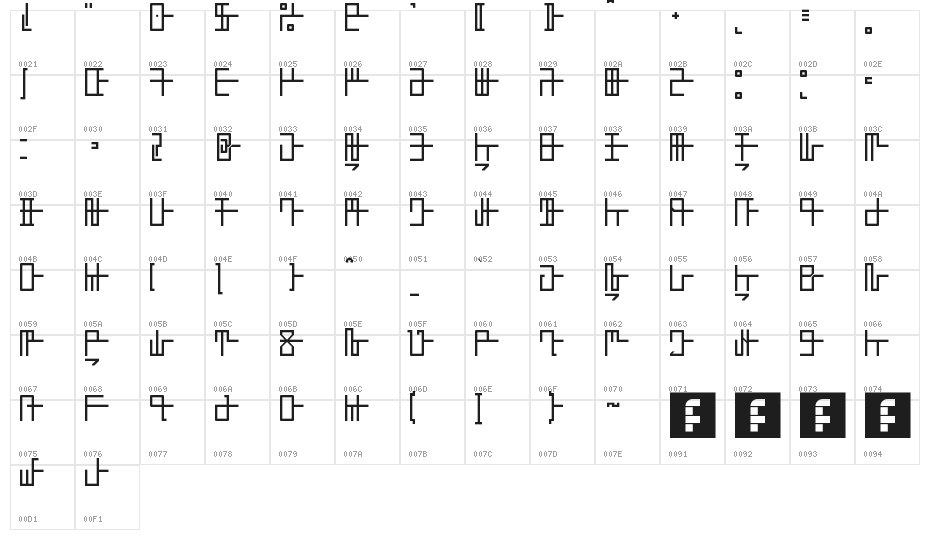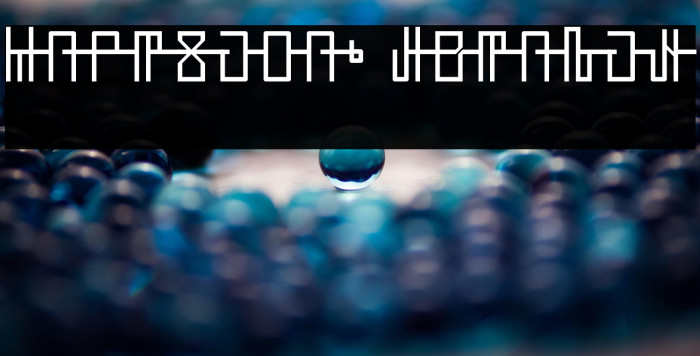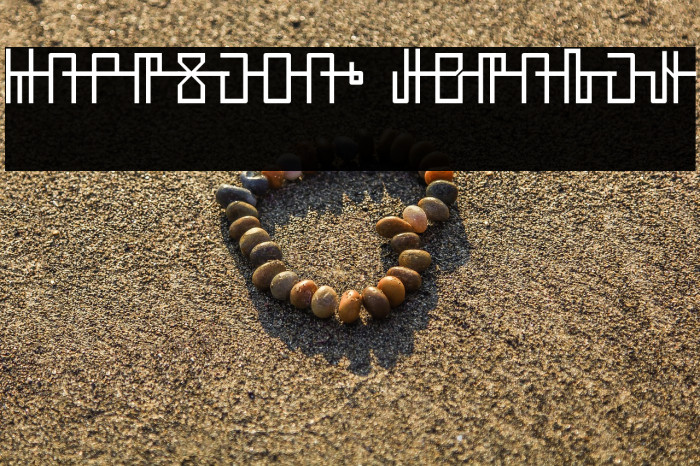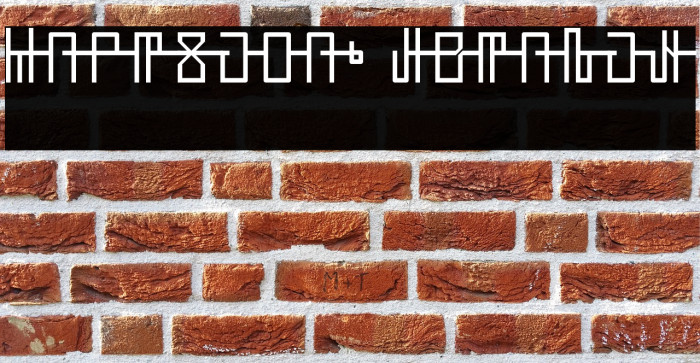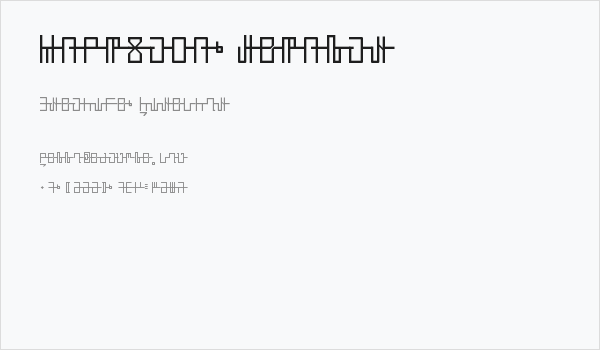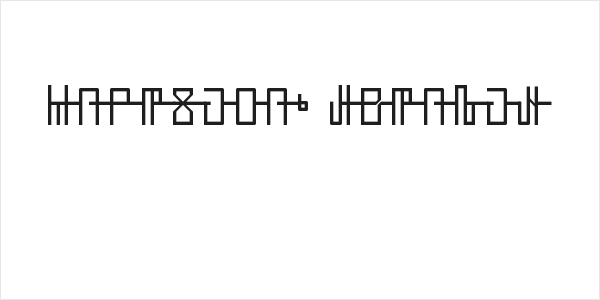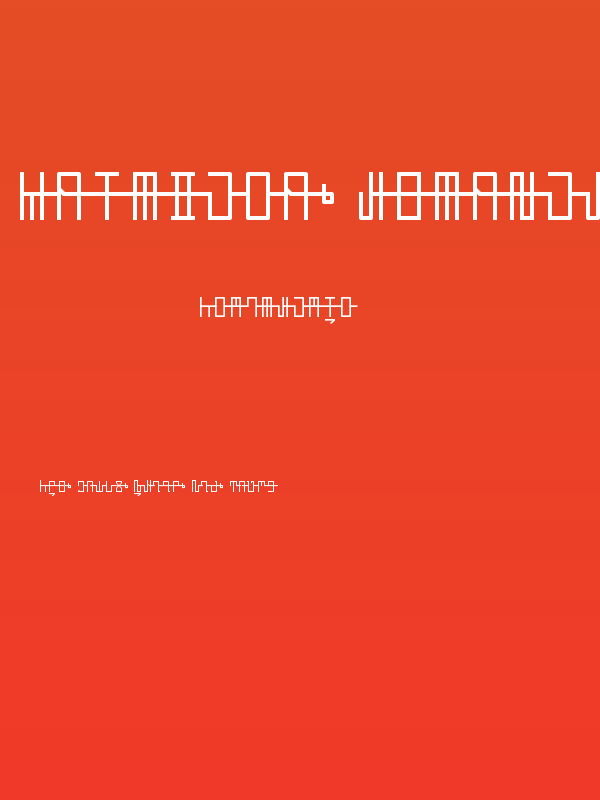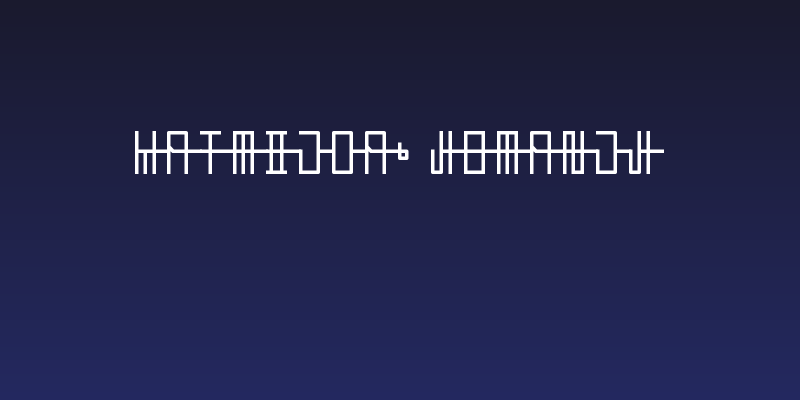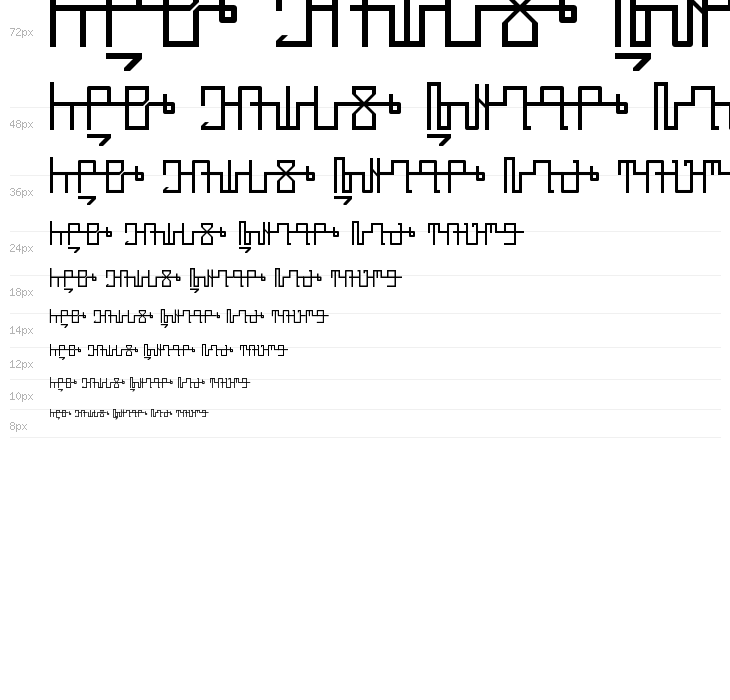
Zungkayu Regular Font
Zungkayu Regular Description
This font features a highly geometric and abstract design, characterized by its linear and angular shapes. Each character is constructed with a series of straight lines and right angles, creating a futuristic and digital appearance. The uniform line thickness throughout the characters gives it a monospaced feel, although it is not strictly monospaced. The characters are distinct and easily recognizable, yet they maintain a cohesive style that ties the entire set together. The font's unique structure makes it ideal for projects that require a modern and unconventional look.
| Use Case | Logos, Headlines, Digital interfaces |
| Proposed Projects | Ideal for digital art, sci-fi themed projects, video game interfaces, and modern branding. |